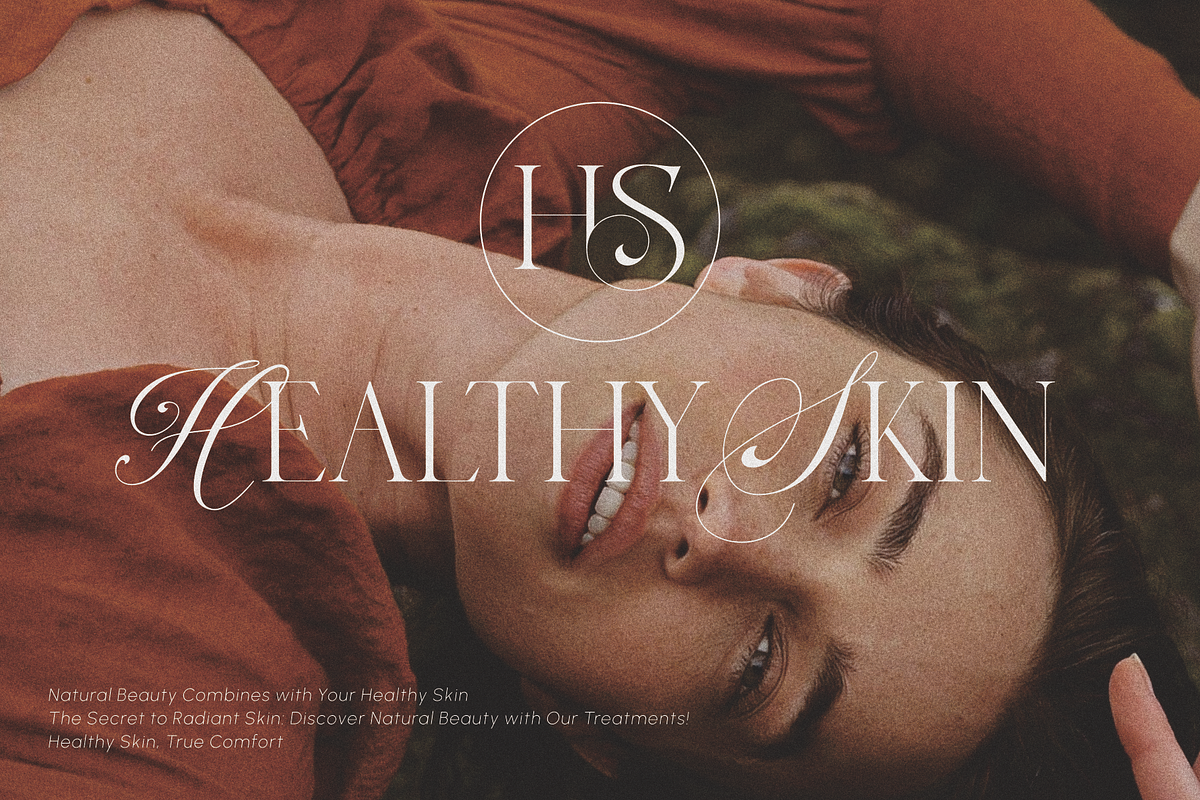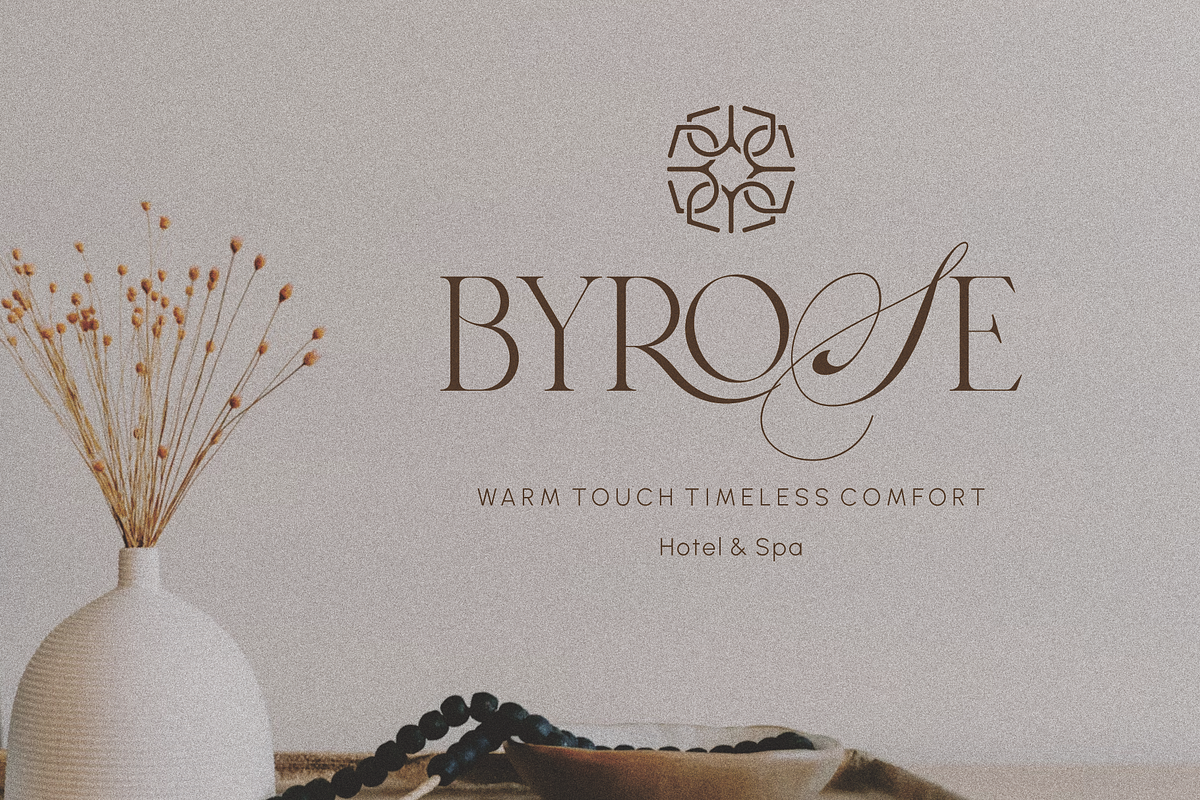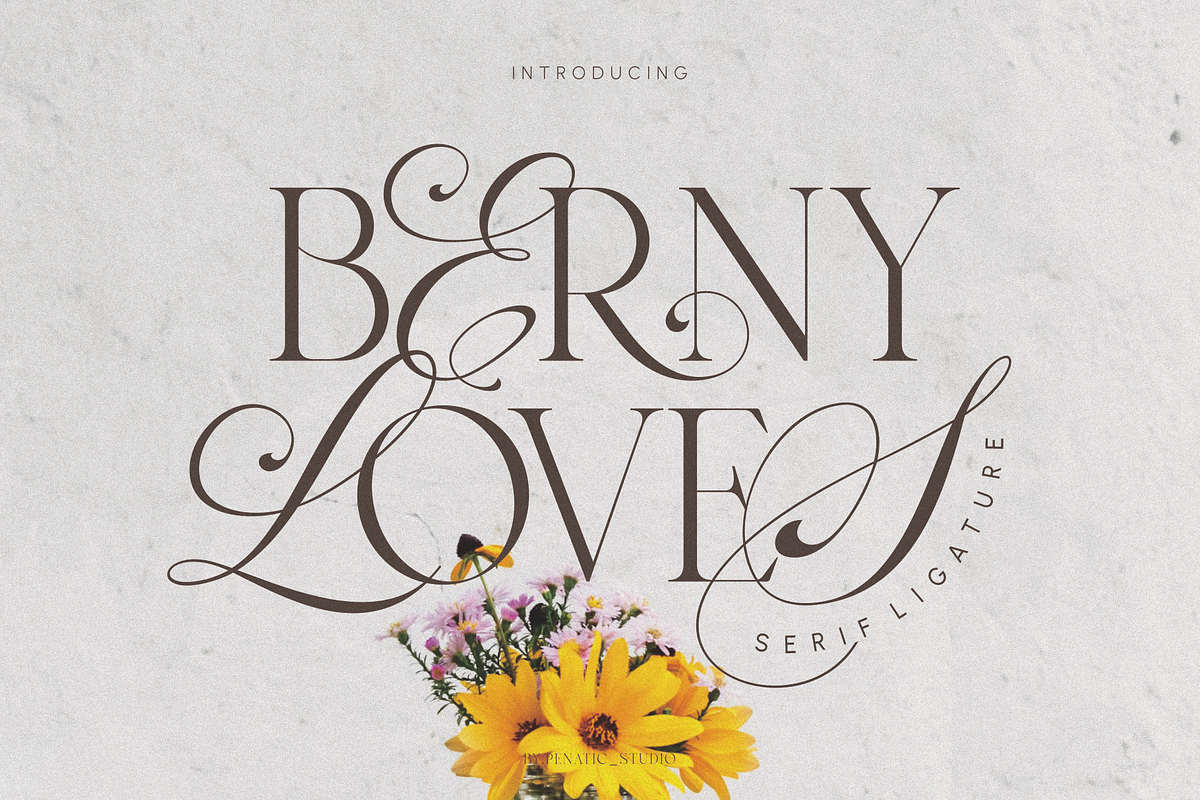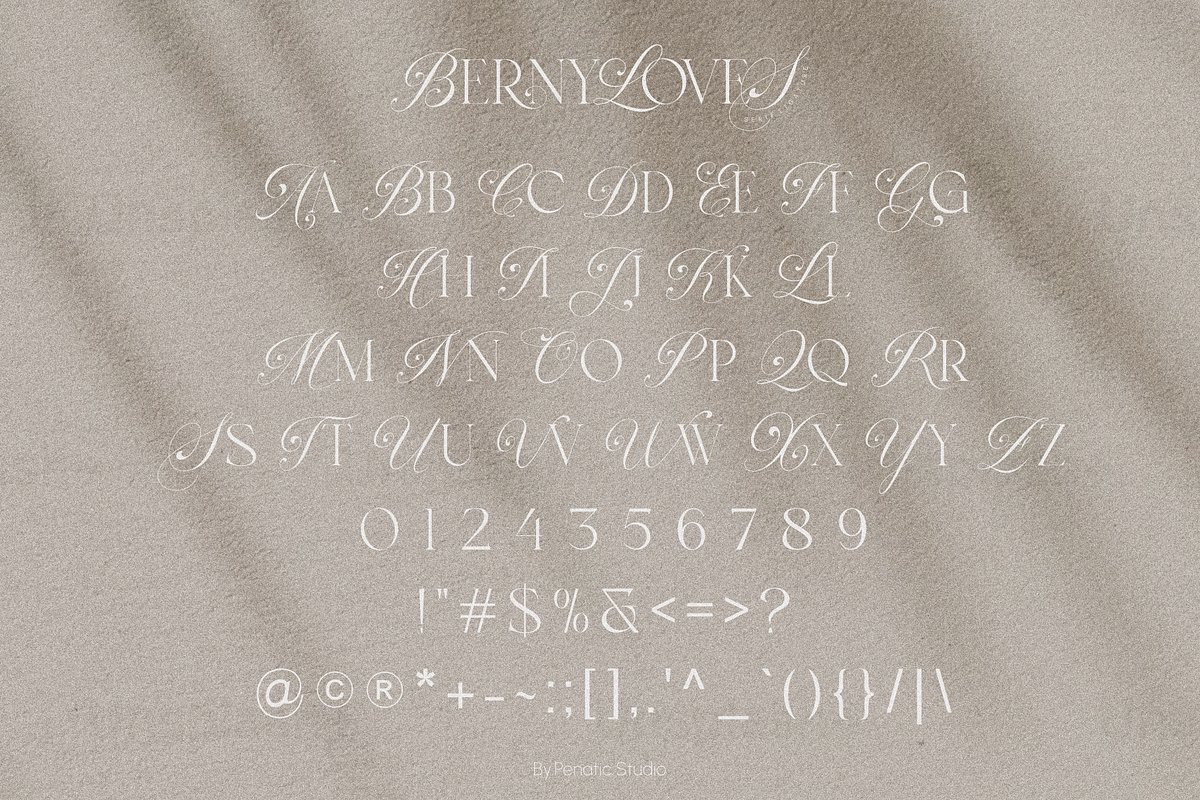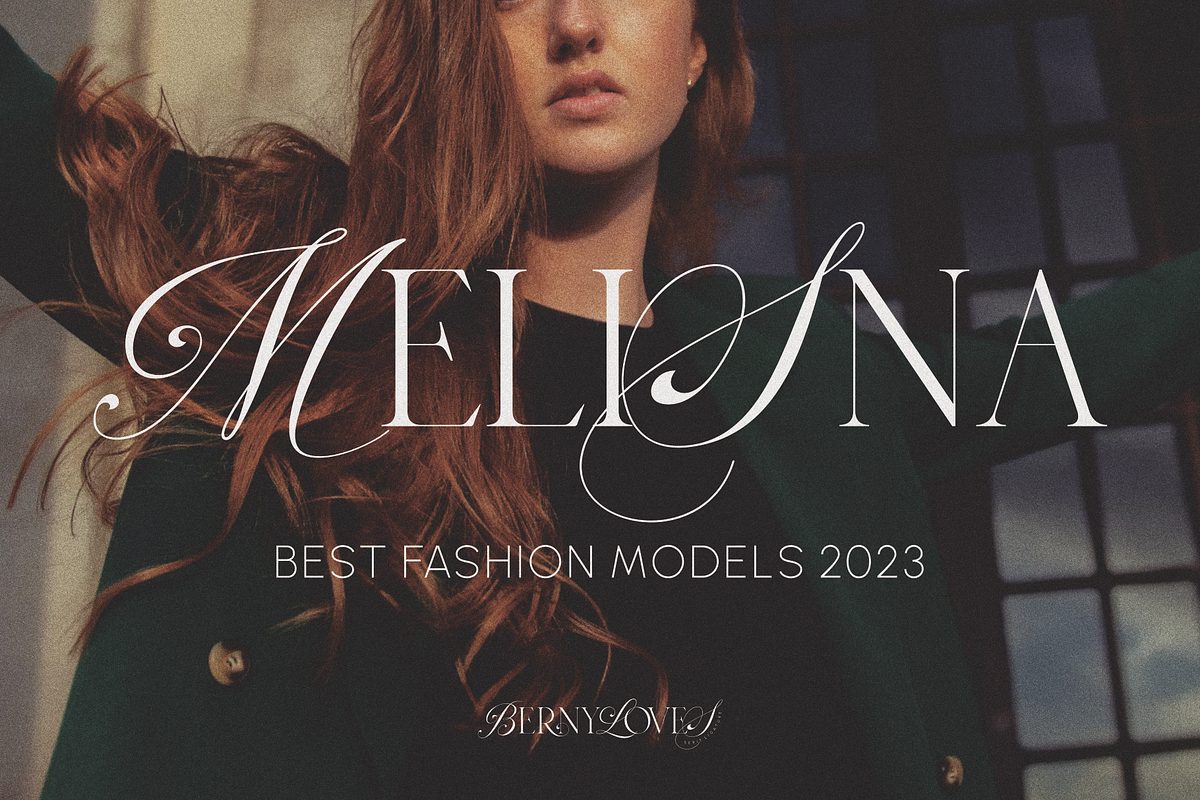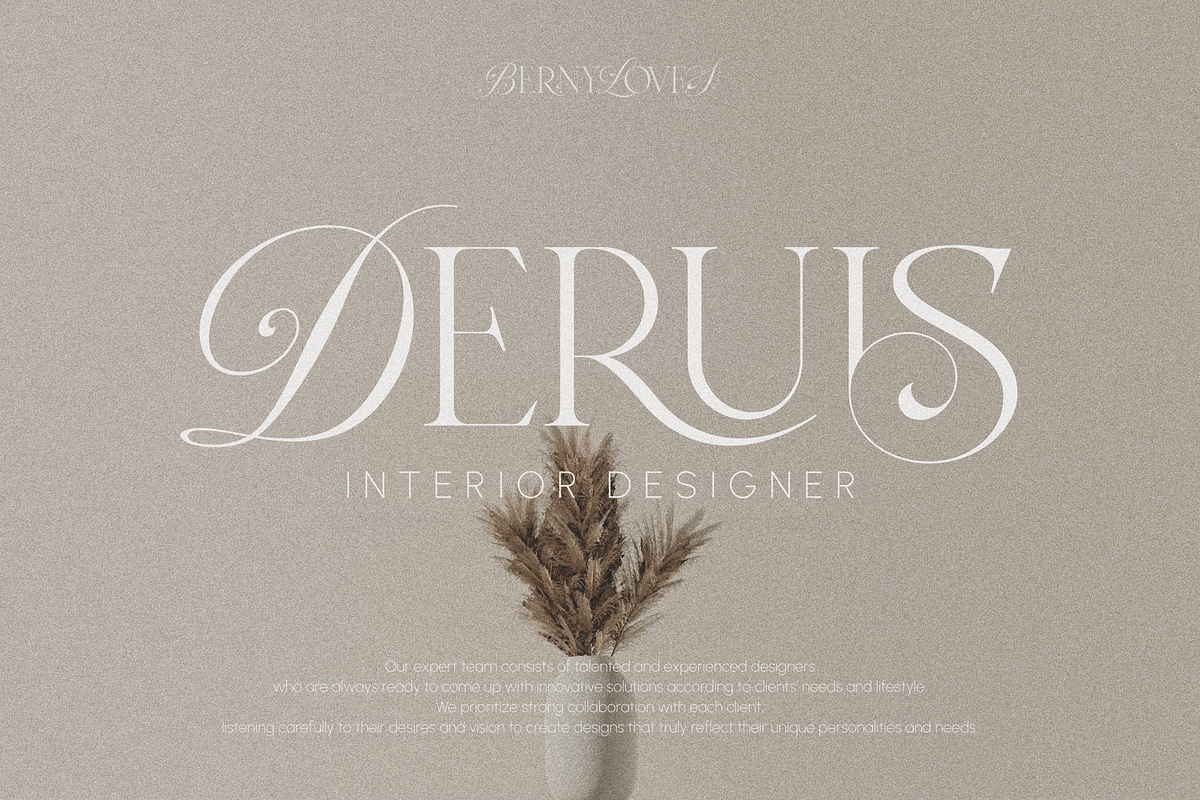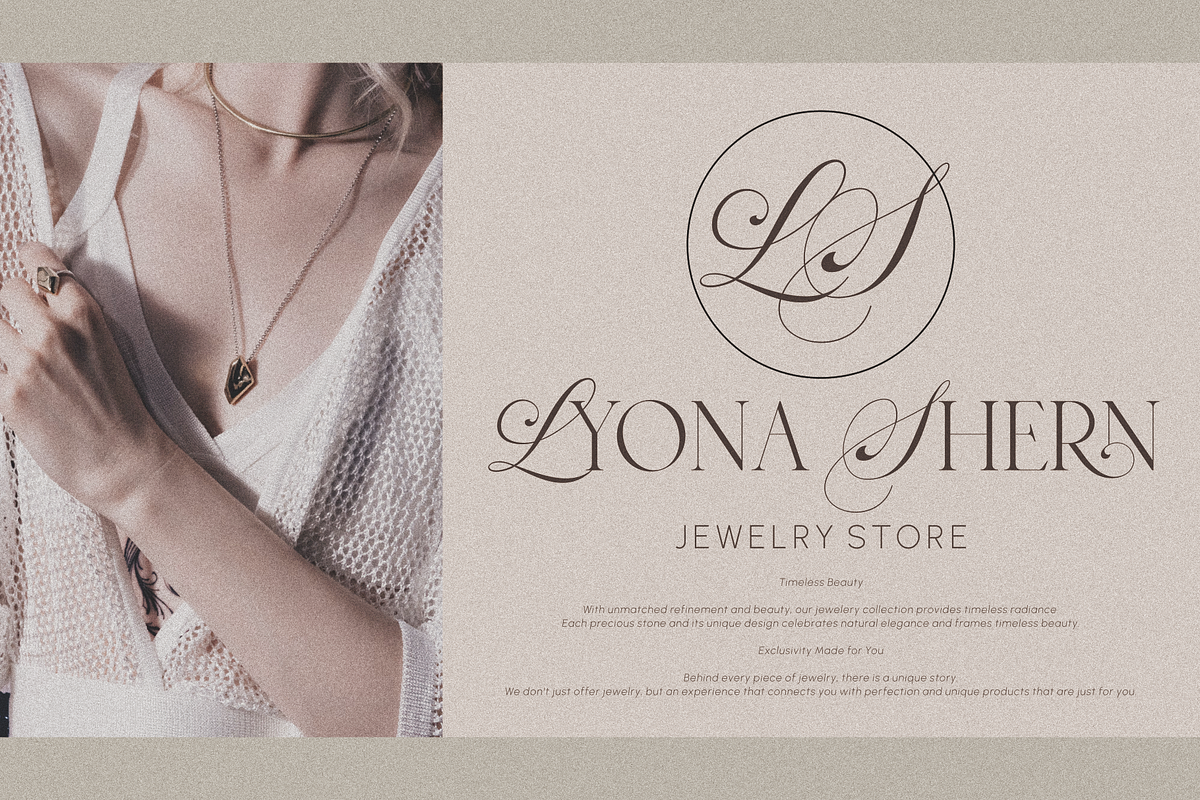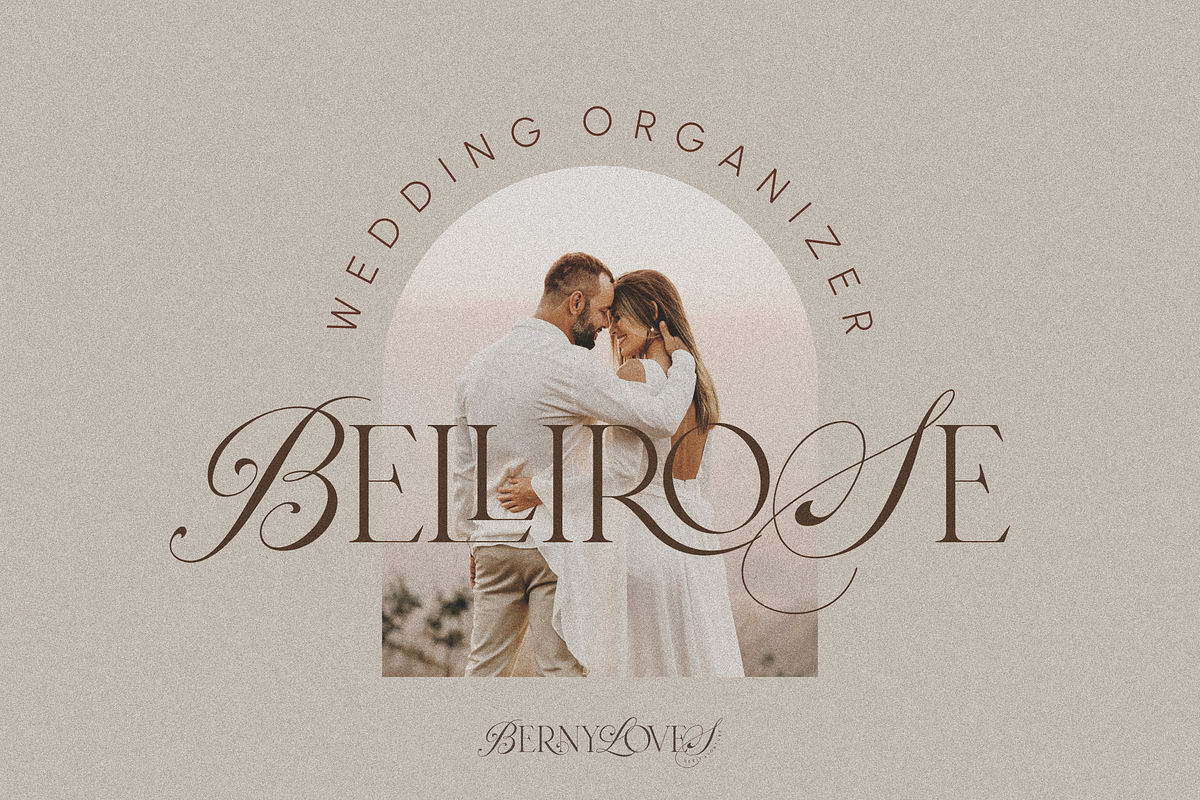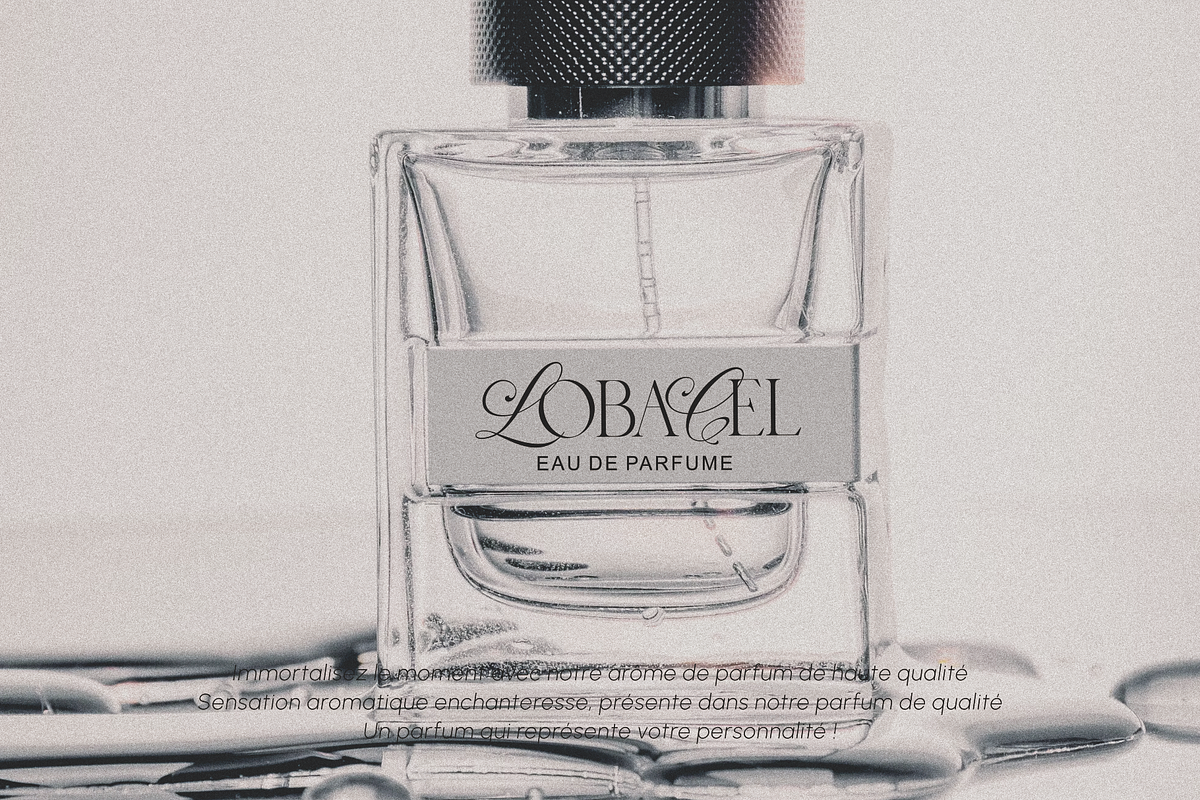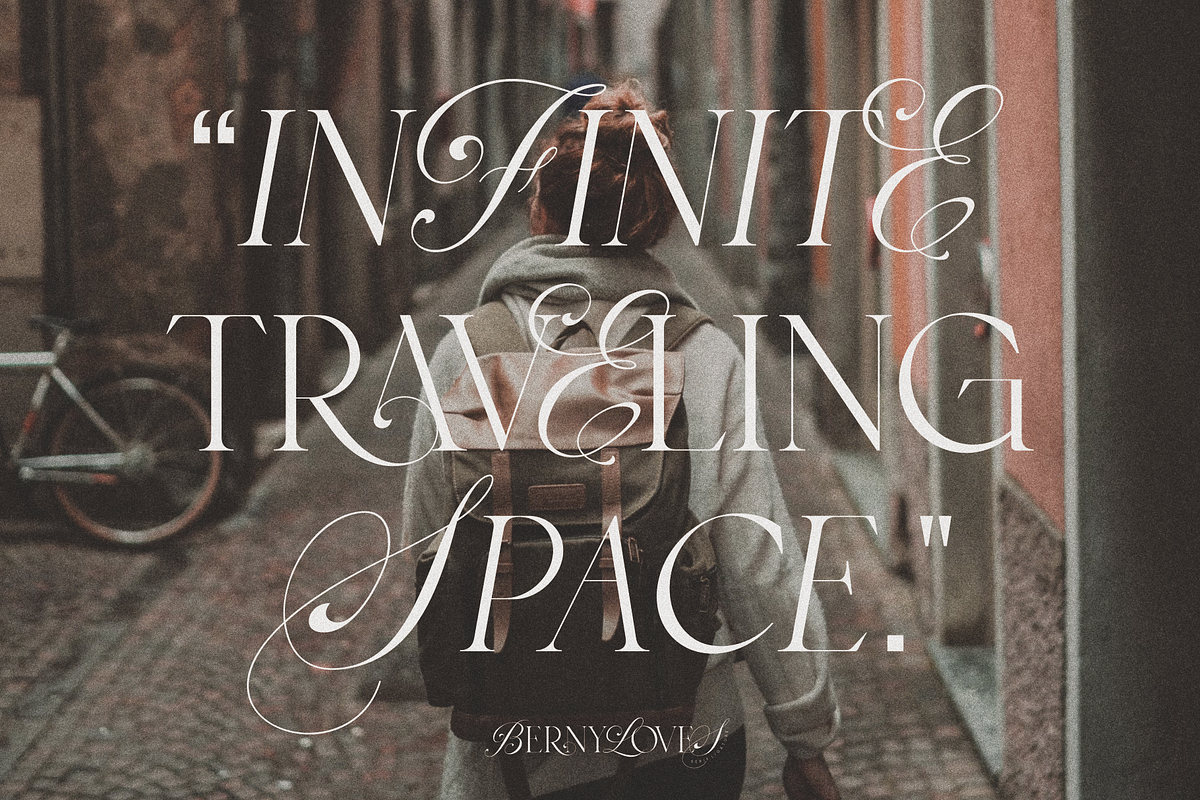
Berny Loves _ Serif Ligature
"Introducing 'Berny Loves _ Serif Ligature A font that combines modern with classic. Designed with balanced proportions and bold yet elegant lines, each letter displays impressive clarity and perfection, making it an ideal choice for projects that require boldness and firmness in every accent.
~ Ligatures and Alternate
~ Unique Fonts